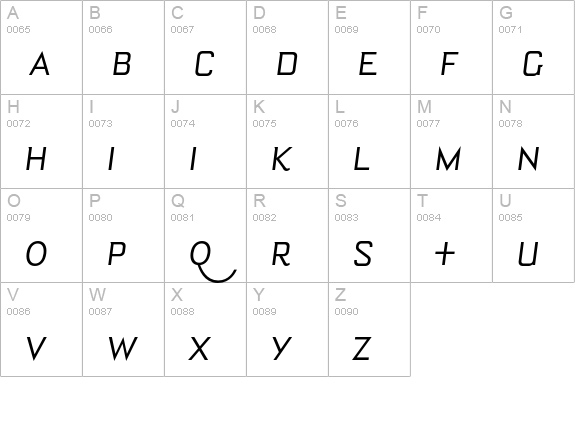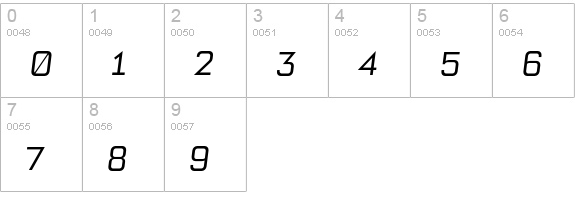
Bourgeois MedItalAlt Font Details
Bourgeois MedItalAlt is a sophisticated and elegant font that effortlessly blends elements of modernity with classic charm. Its sleek and stylish design exudes a sense of luxury, making it perfect for projects that require a touch of sophistication. The italicized alternative version of the font adds a unique flair, making it stand out from the crowd. What sets Bourgeois MedItalAlt apart is not just its stunning aesthetics, but also the fact that it is available for free download at FontsMarket.com. This means that you can easily access this high-quality font for your personal or commercial projects without any cost. Whether you're creating invitations, branding materials, or any other design project, Bourgeois MedItalAlt is sure to elevate your work with its timeless appeal.